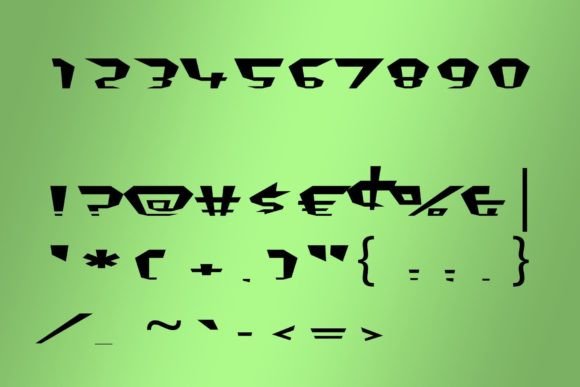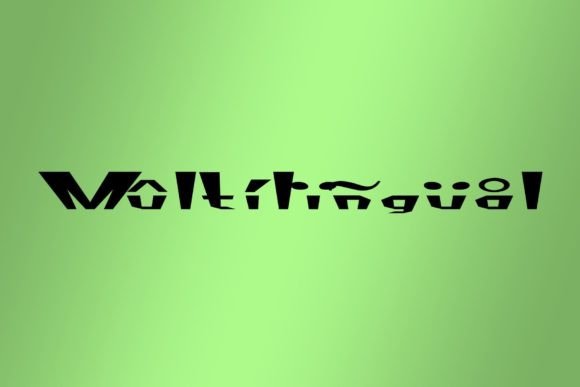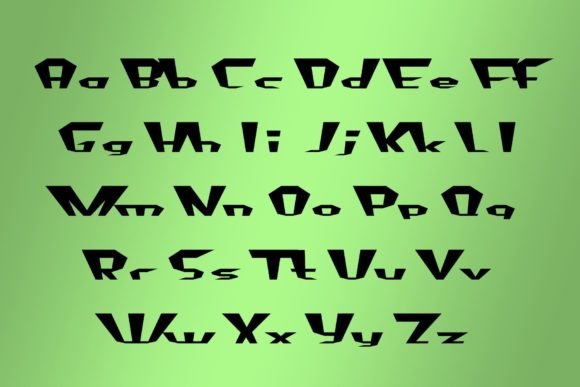
Introducing Fluoride Font: The Bold, Fun, and Quirky Display Font You Need
Are you tired of using the same old fonts in your designs? Look no further! Fluoride Font is here to shake things up with its bold, fun, and interesting style. This whimsical and quirky display font is perfect for adding a touch of personality to your projects. In this article, we’ll dive into the world of Fluoride Font and explore its features, benefits, and uses.
What is Fluoride Font?
Fluoride Font is a display font designed to make a statement. Its bold and playful style makes it perfect for headlines, titles, and other attention-grabbing elements in your designs. The font’s quirky and whimsical nature adds a touch of fun and personality to any project, making it ideal for designers and crafters looking to create something unique and eye-catching.
Key Features of Fluoride Font
- Bold and Fun Style: Fluoride Font is designed to be bold and attention-grabbing, making it perfect for headlines and titles.
- Whimsical and Quirky: The font’s quirky nature adds a touch of personality to any project, making it stand out from the crowd.
- Display Font: Fluoride Font is specifically designed as a display font, making it perfect for large text and attention-grabbing elements.
- Easy to Read: Despite its bold and playful style, Fluoride Font is easy to read, making it perfect for use in a variety of designs.
Benefits of Using Fluoride Font
- Adds Personality to Your Designs: Fluoride Font’s quirky and whimsical nature adds a touch of personality to any project, making it stand out from the crowd.
- Perfect for Headlines and Titles: The font’s bold and attention-grabbing style makes it perfect for headlines and titles.
- Versatile: Fluoride Font can be used in a variety of contexts, from children’s designs to adult-oriented projects.
- Use it as a Headline Font: Fluoride Font is perfect for use as a headline font, adding a touch of personality to your designs.
In conclusion, Fluoride Font is a bold, fun, and quirky display font that’s perfect for adding a touch of personality to your designs. With its easy-to-read style and versatile nature, it’s perfect for use in a variety of contexts, from graphic design to crafting. So why not give Fluoride Font a try and see the difference it can make in your designs?